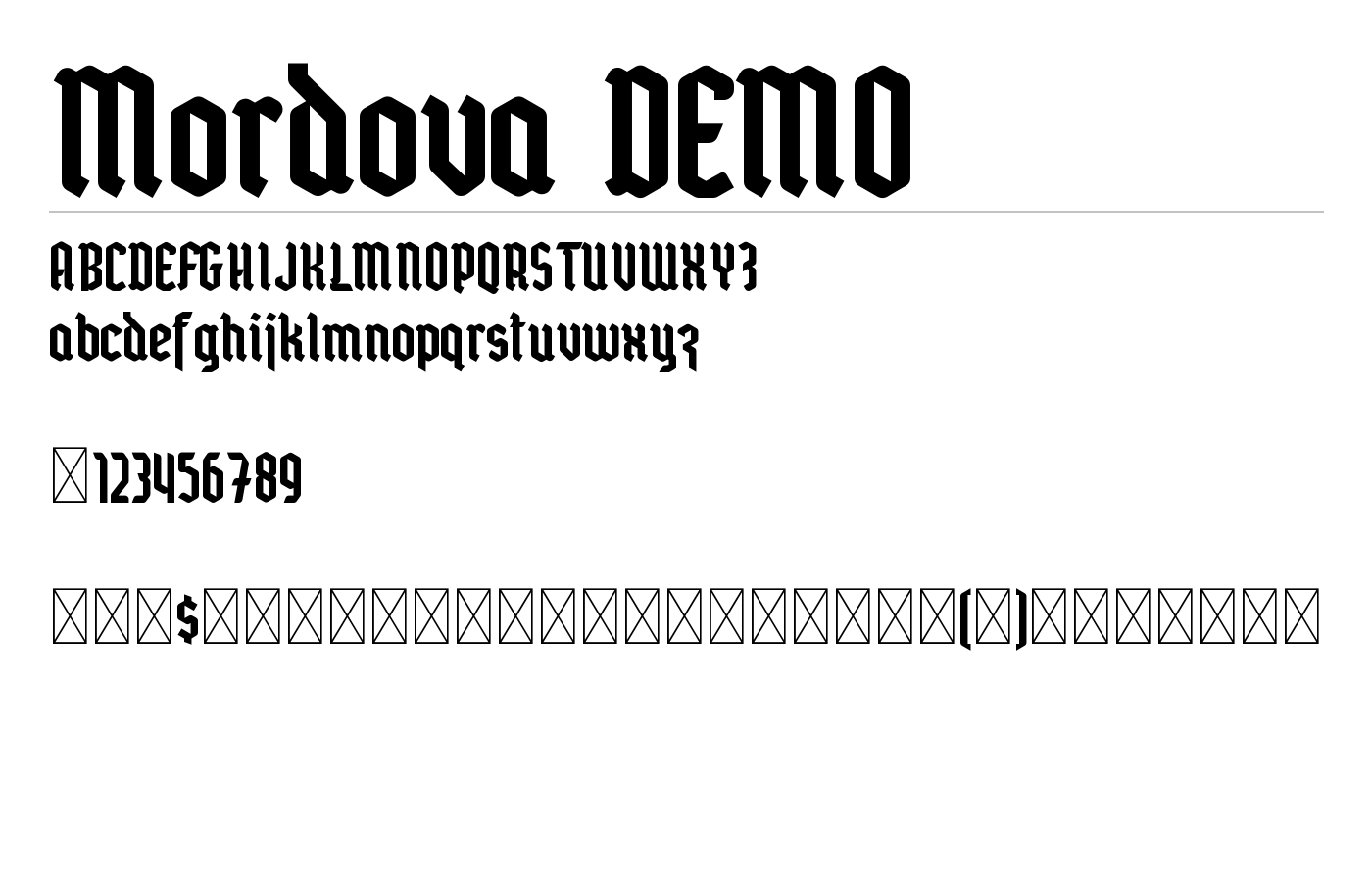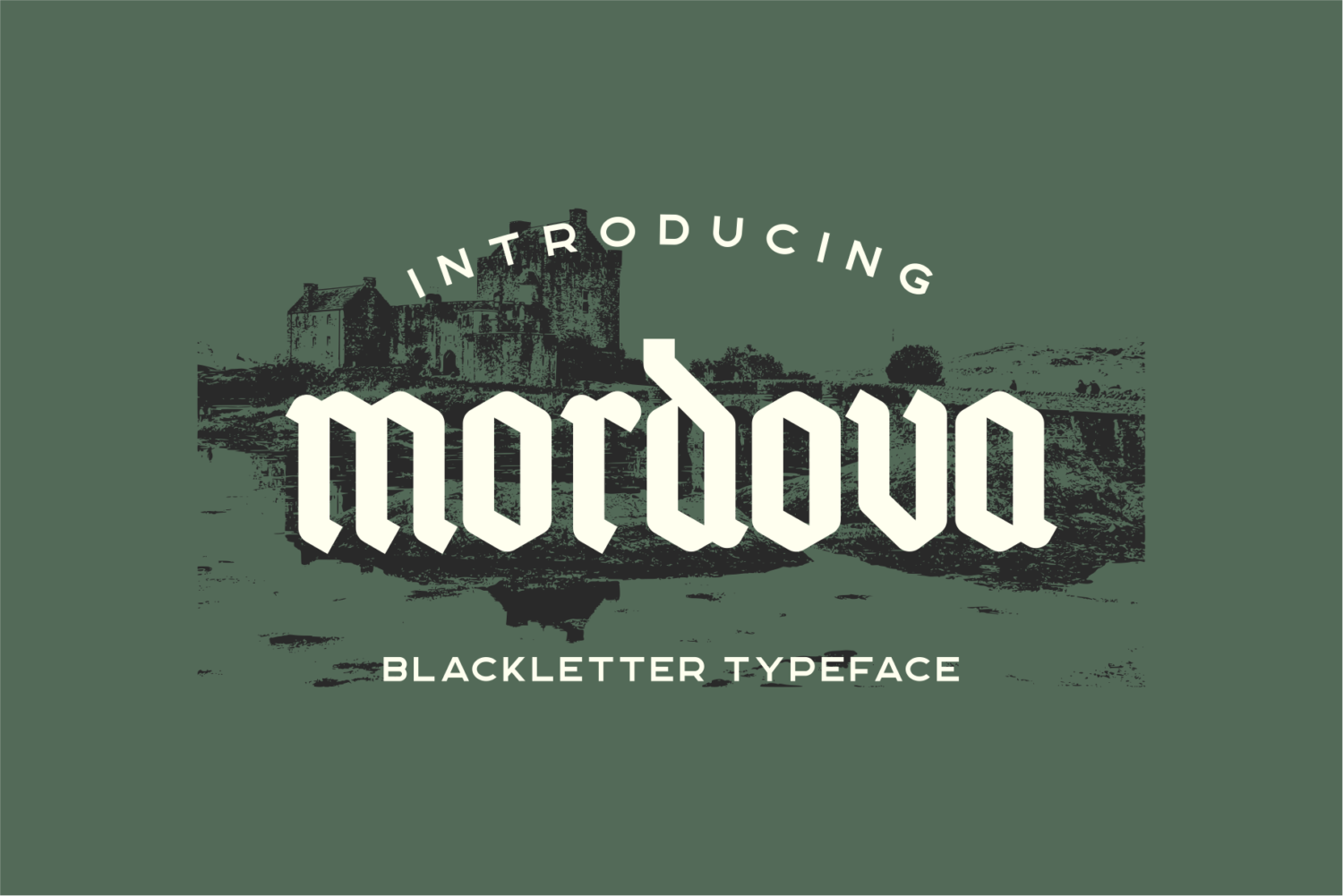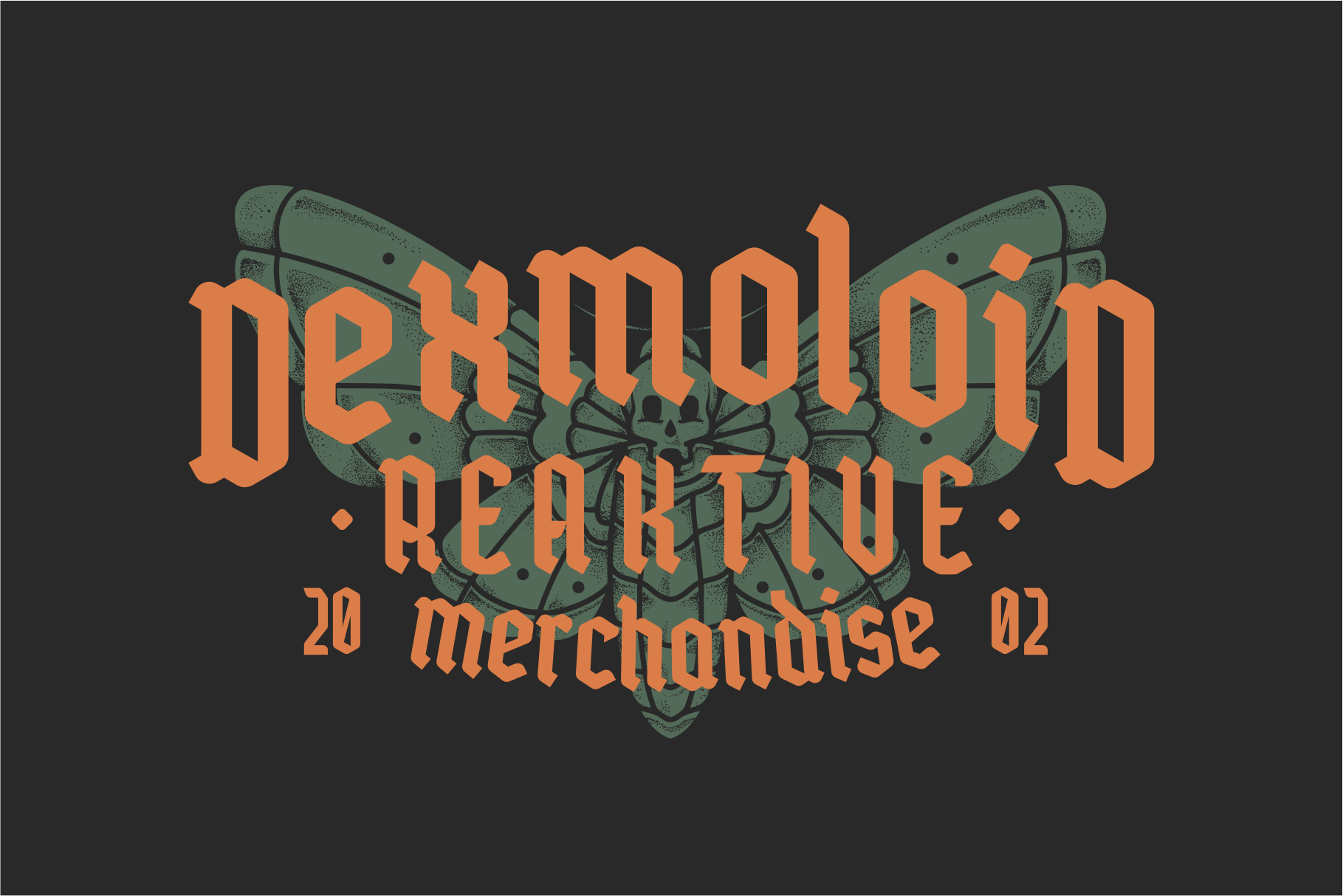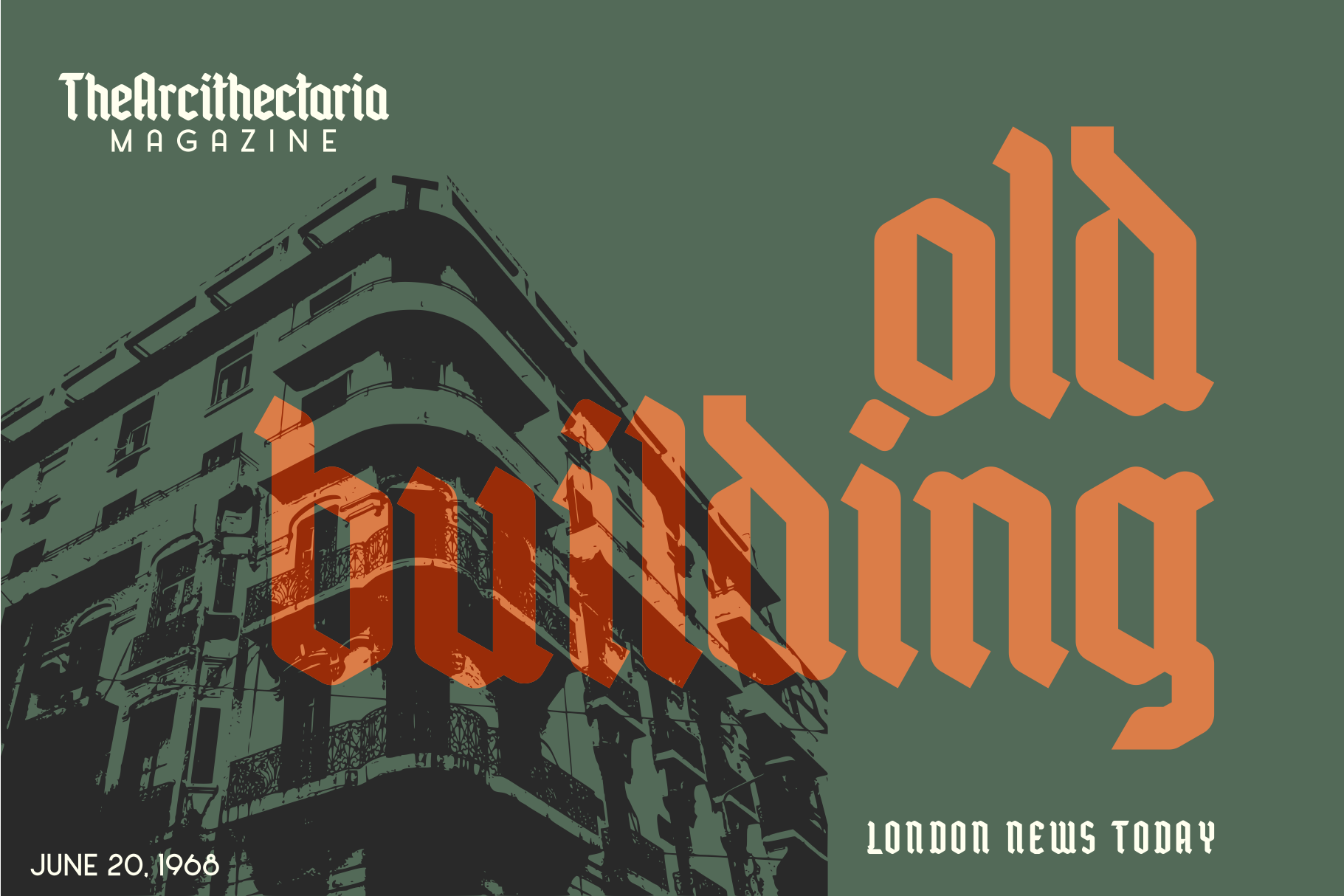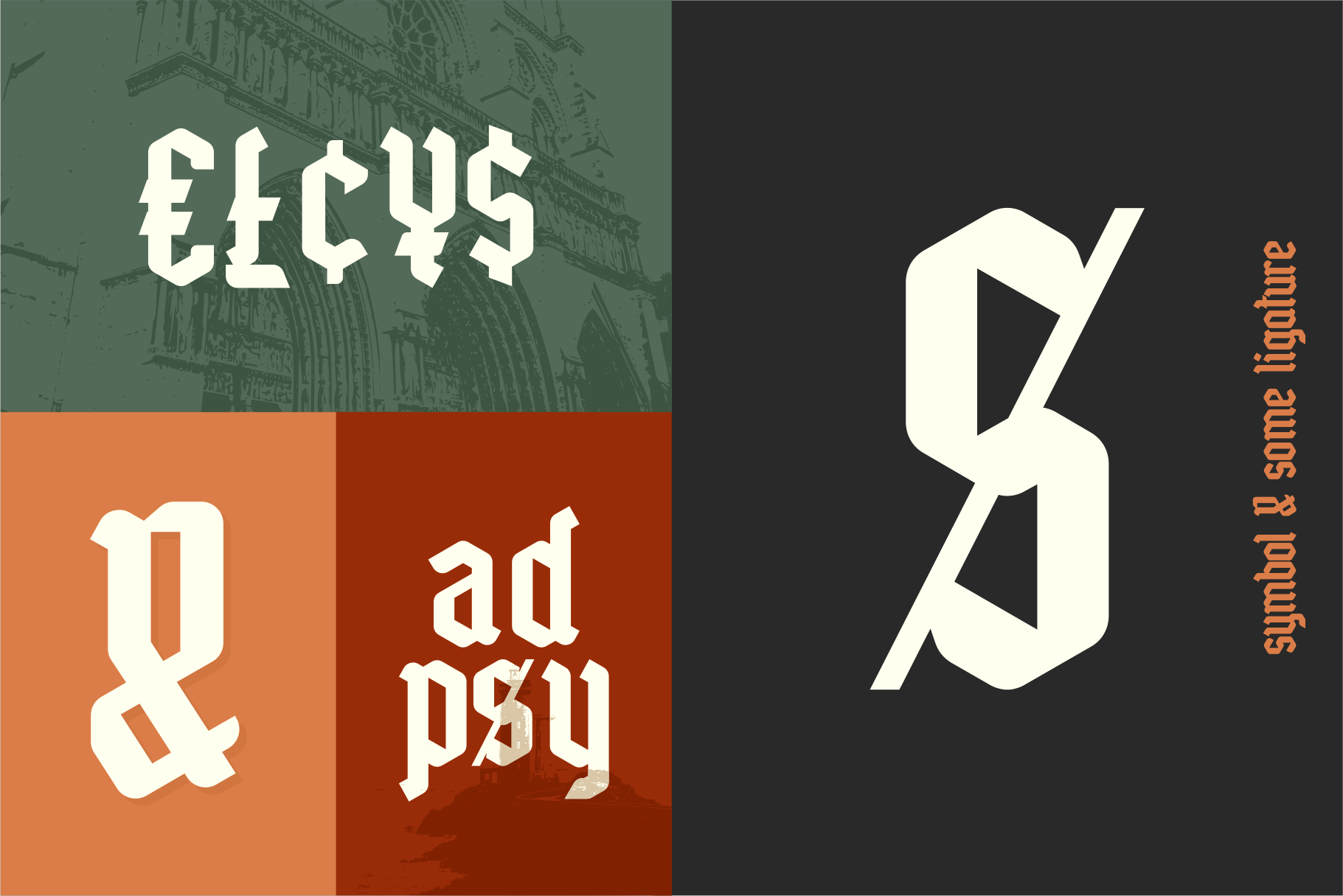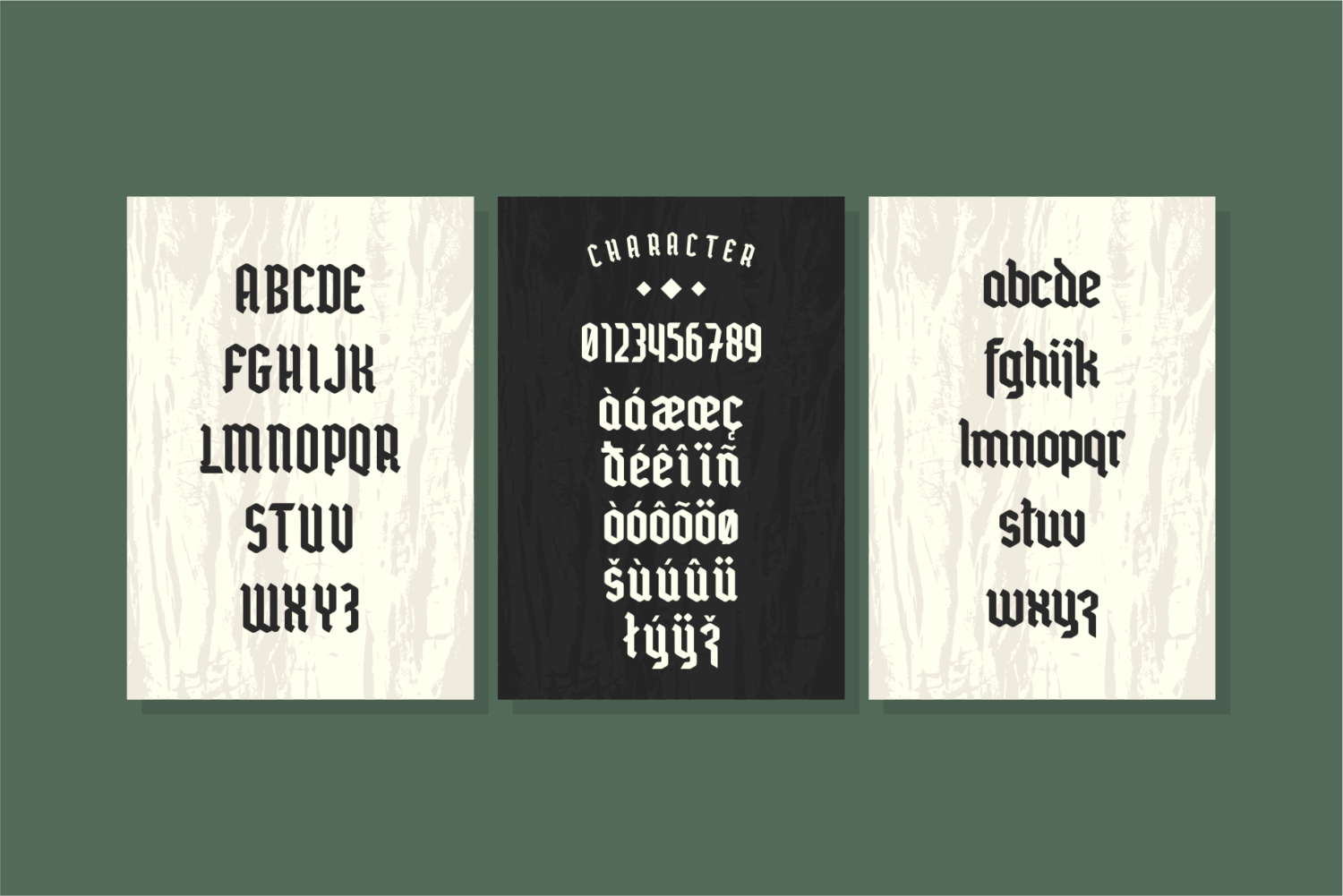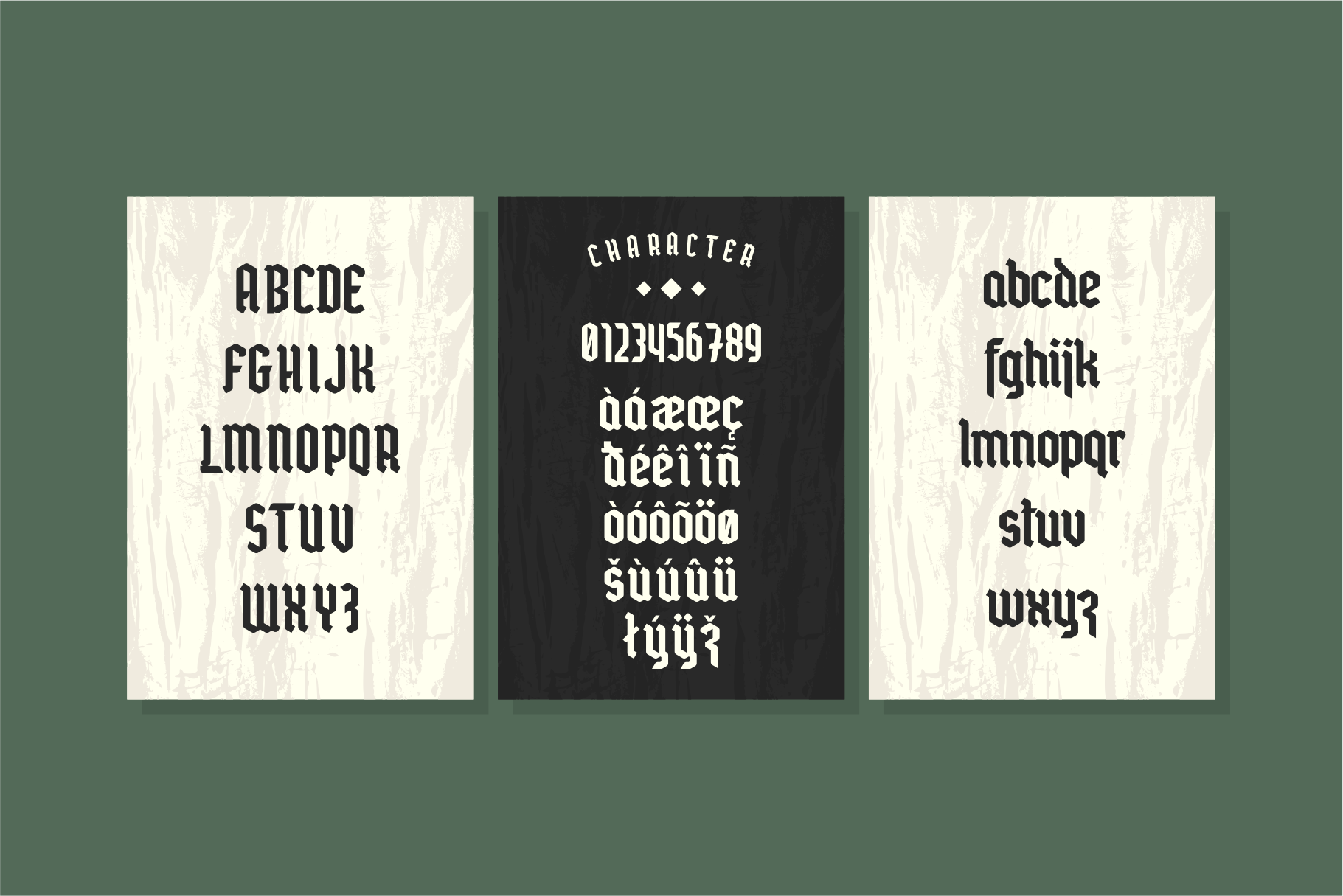
Mordova Blackletter is a bold and narrow blackletter typeface featuring sharp, angular strokes and a strong vertical emphasis that evokes a traditional Gothic style. Its distinctive letterforms and high contrast create a dramatic, medieval feel, making it ideal for branding, posters, or any design seeking a vintage, historic, or edgy aesthetic. This font works best in larger sizes where its unique details can stand out and add character.
Mordova Blackletter Typeface
About Mordova Blackletter Typeface
| Font family | Mordova Blackletter Typeface |
| Designer | Holis Majid |